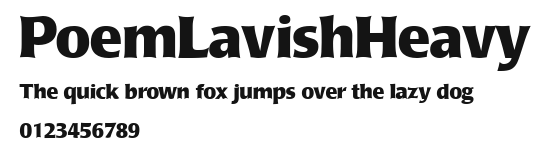
• Font Name: PoemLavishHeavy
• Full Font Name: PoemLavishHeavy-Regular
About PoemLavishHeavy.ttf
PoemLavishHeavy.ttf is a modern, elegant sans-serif font designed for ultimate readability and visual harmony. Perfect for branding, headlines, web design, and print materials.